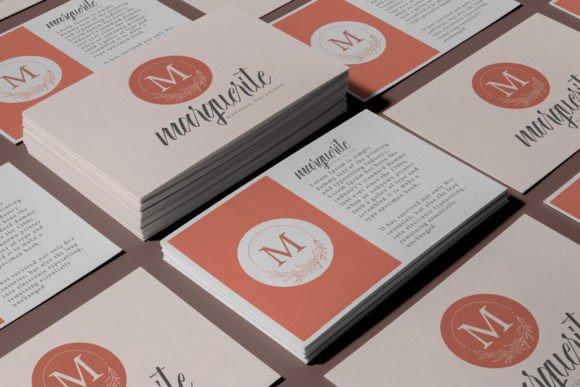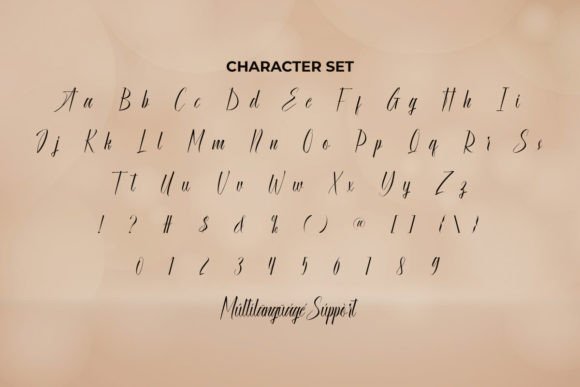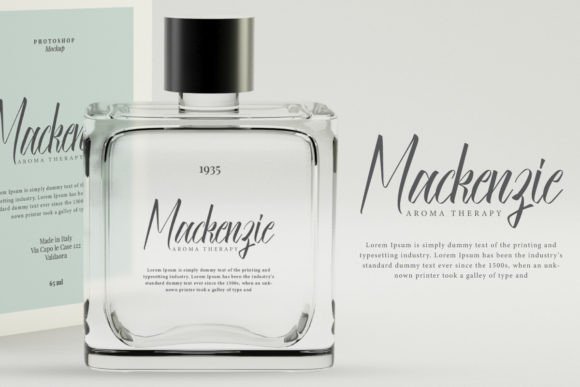
Introduction to Gathering Together Font
Gathering Together Font is a gorgeous signature calligraphy script font.
This font is made of beautiful lines that convey the luxury that will delight your eyes to produce glamour designs, such as apps, business cards, custom designs, invitations, labels, magazine catalogs, menus, posters, product packaging, quotes, title, watermark, website, and more .